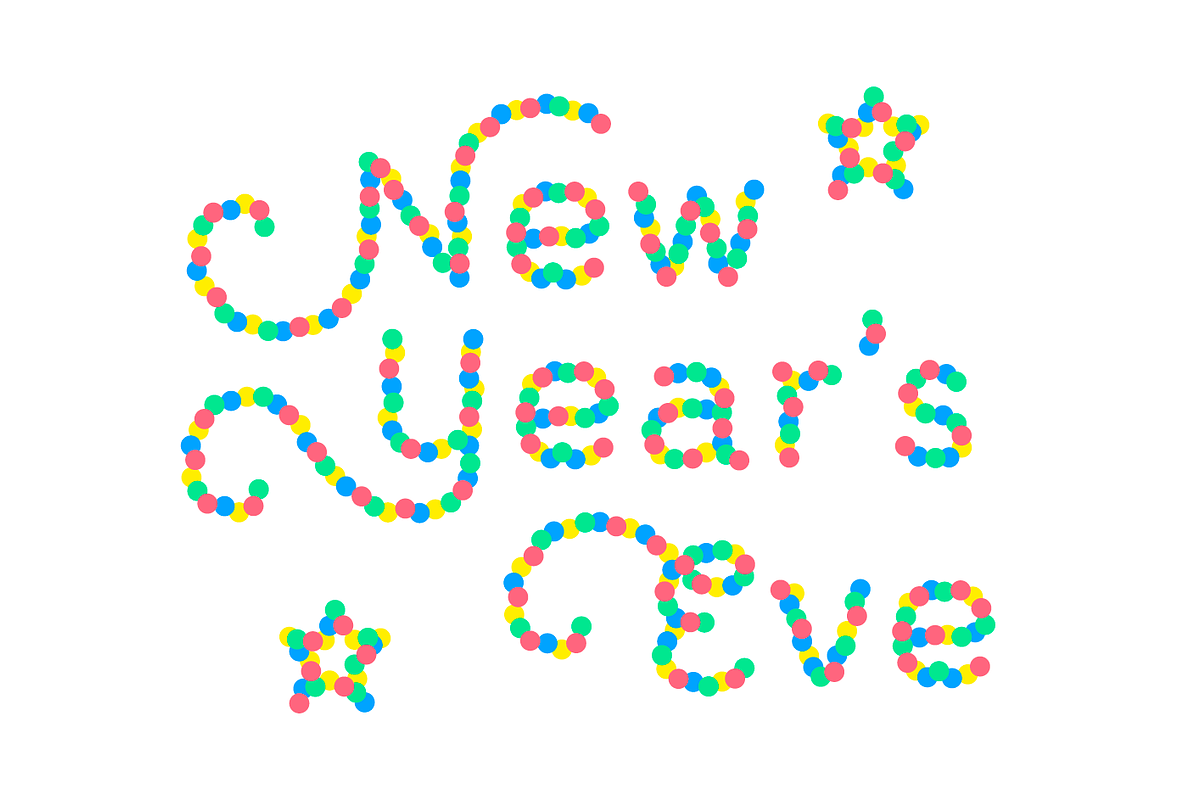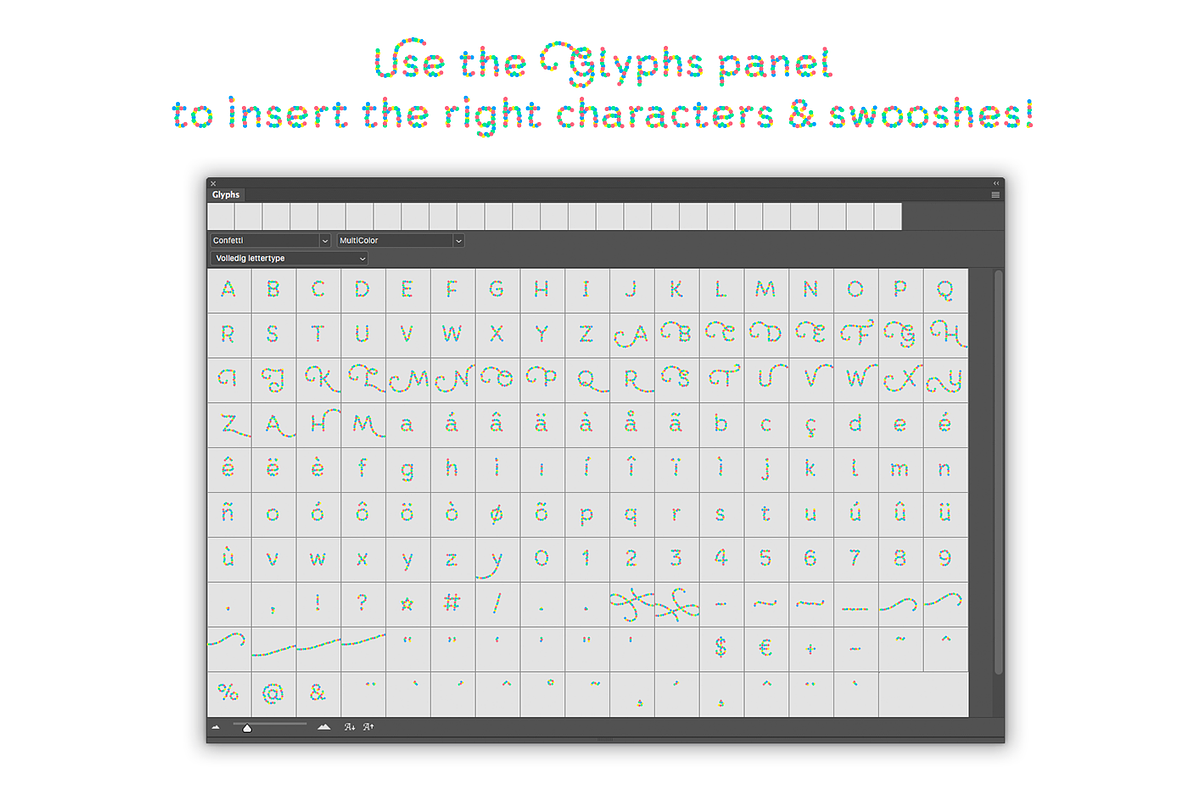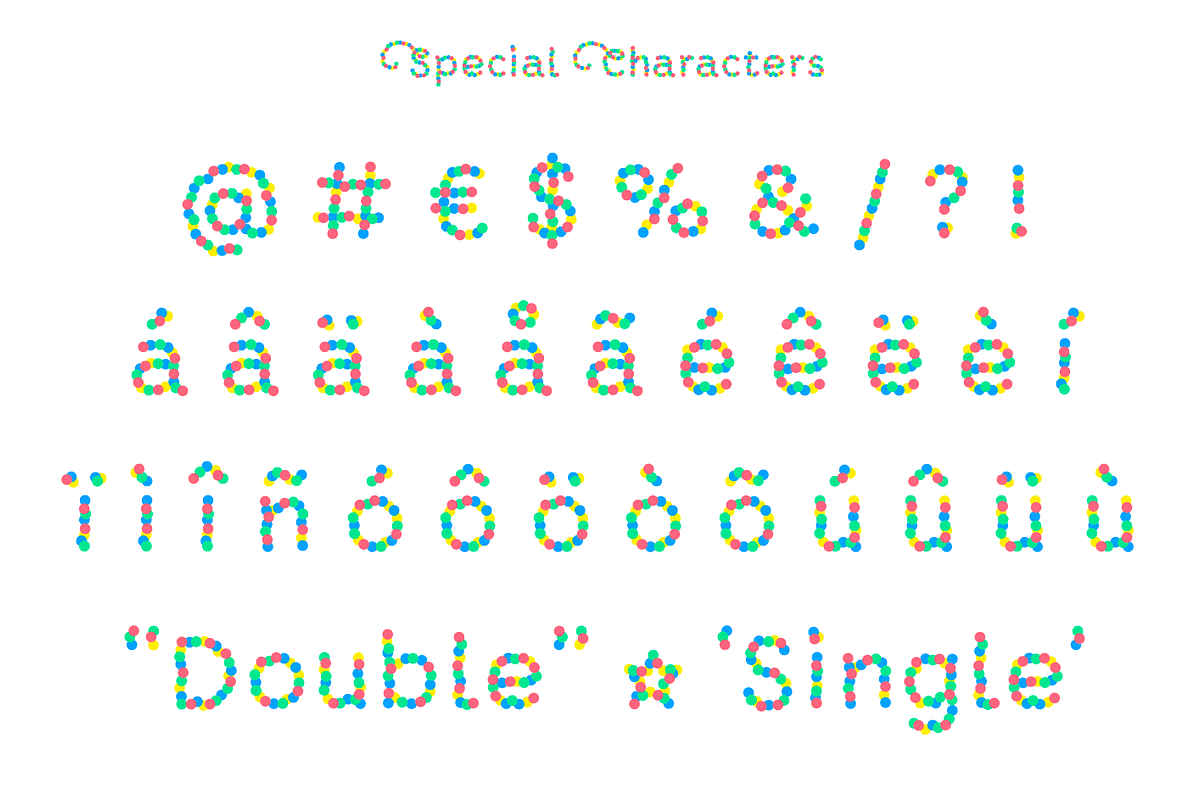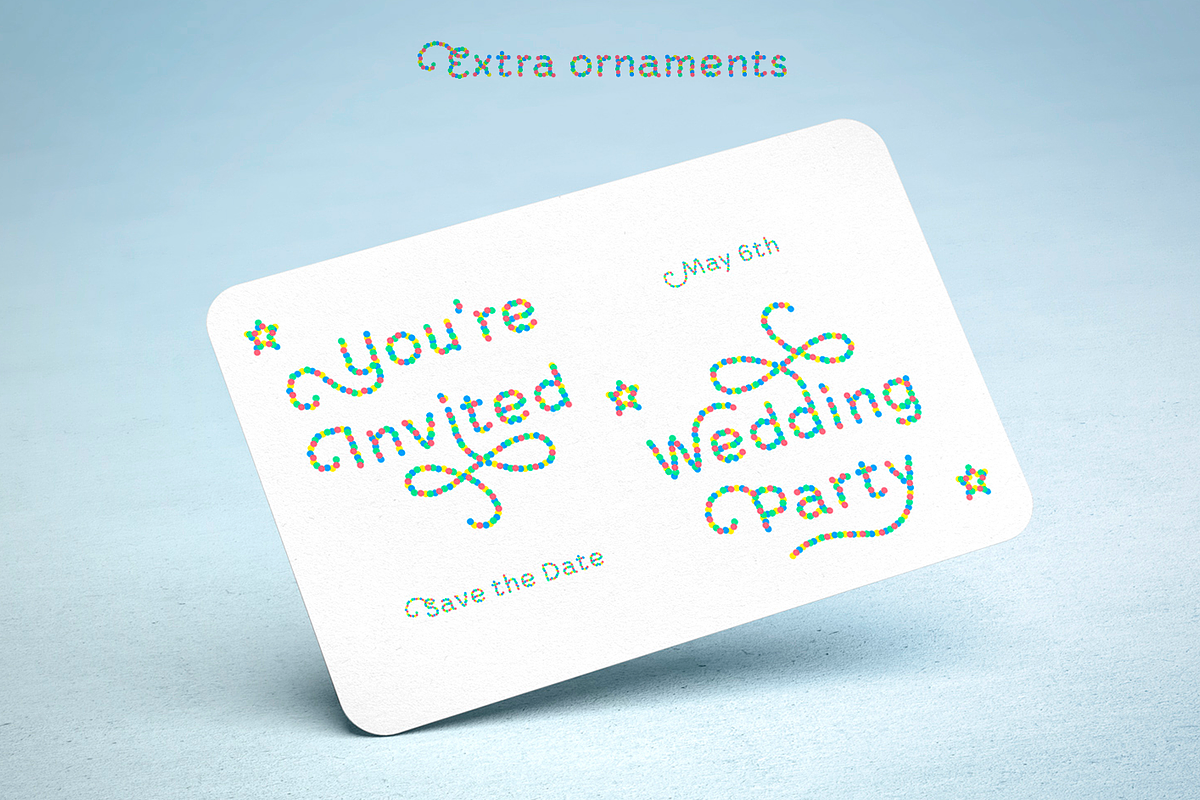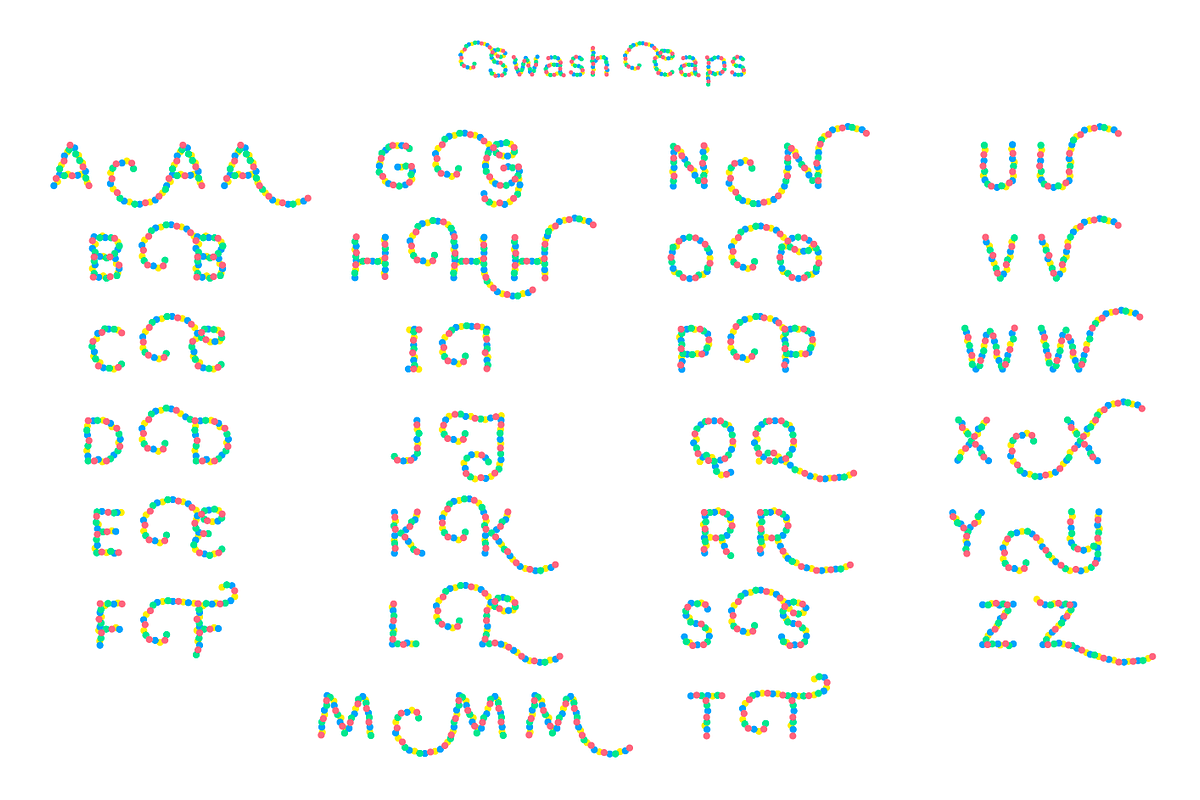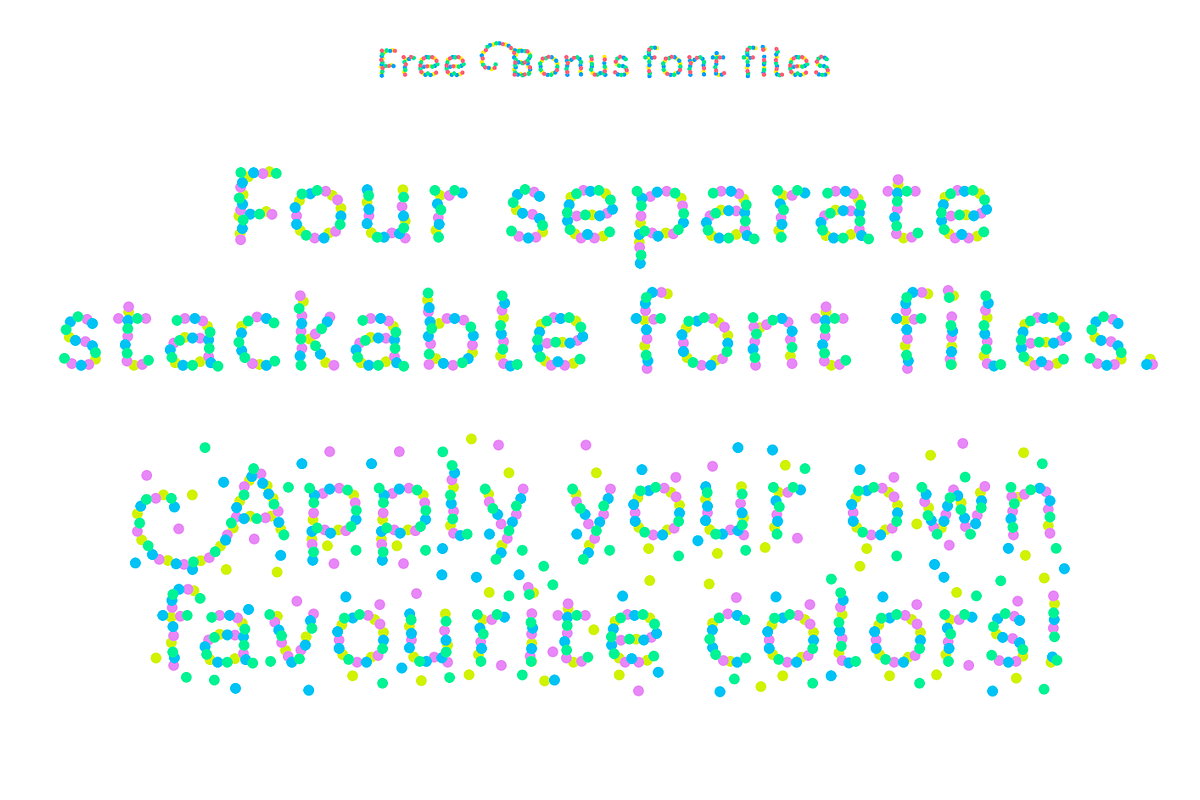
Confetti font
Type colorful texts with Confetti MultiColor font! The Confetti MultiColor font is the perfect font for invitations and cards. Offering multiple features, ornaments, and design elements, this font is the festive answer to all of your creative needs.
Confetti font (clean version)
Bonus font: Confetti Wild (more decorative version with extra confetti)
Uppercase & lowercase characters
Extra uppercase with swashes
Numbers, punctuation, accents
End tails & bonus ornaments